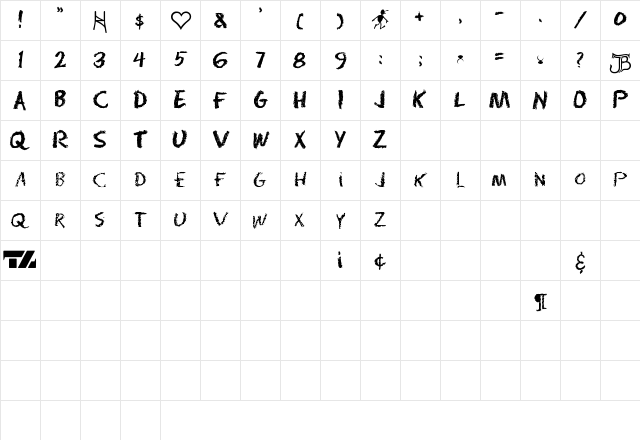
Radium J Perished
Style: Perished
Design Context for Radium J
Radium J is a composed and adaptable typeface that performs quietly and consistently across a wide range of design contexts.